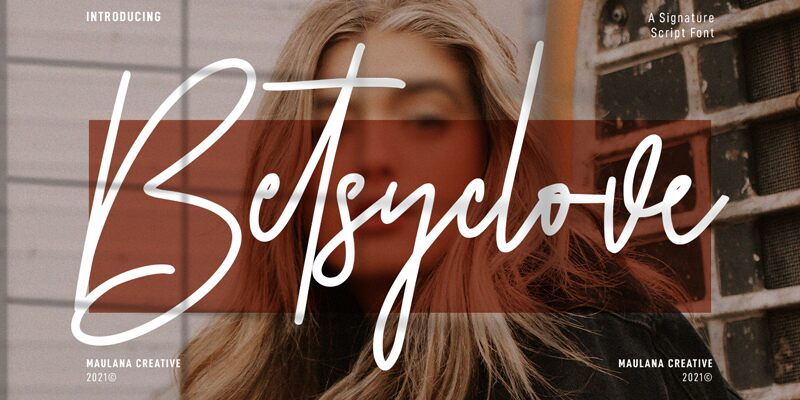
Betsyclove
Introducing Betsyclove, a thin handwritten font designed by Maulana Creative. Perfect for adding an artistic touch to your projects, it's ideal for logos, posters, wedding invitations and more.